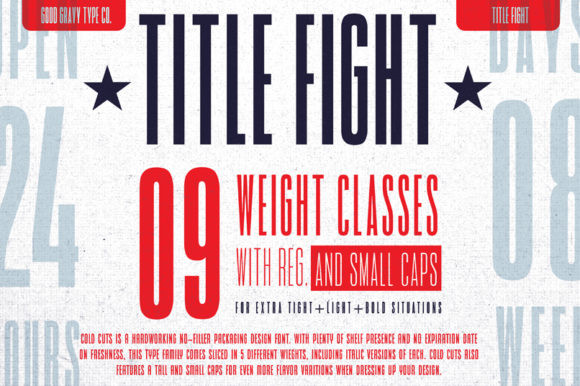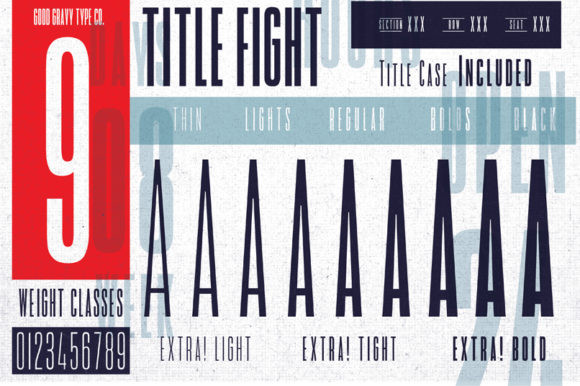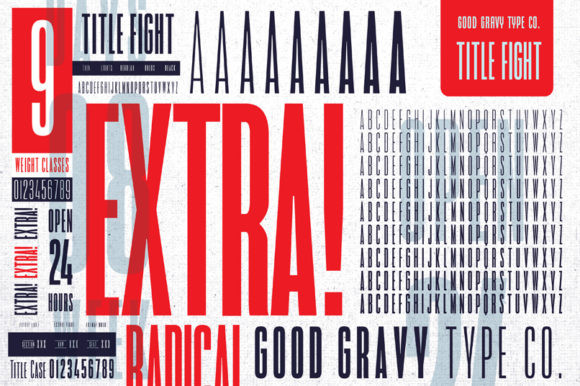
Title Fight Font
Title Fight is an eye-catching and spectacular sans serif font. With different styles, it’s perfectly suited for a wide variety of projects!